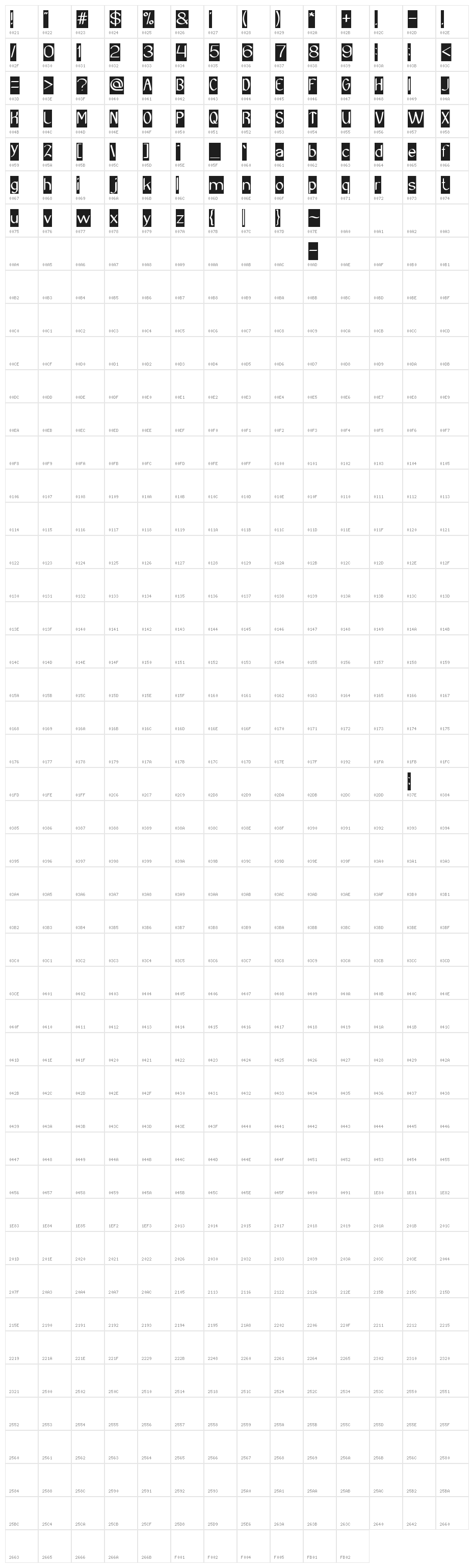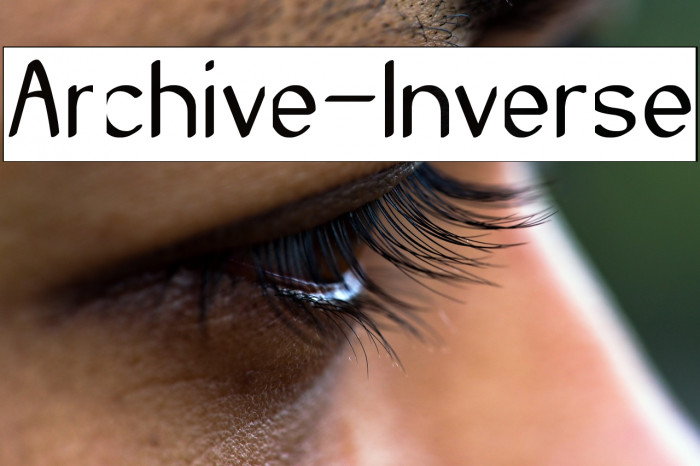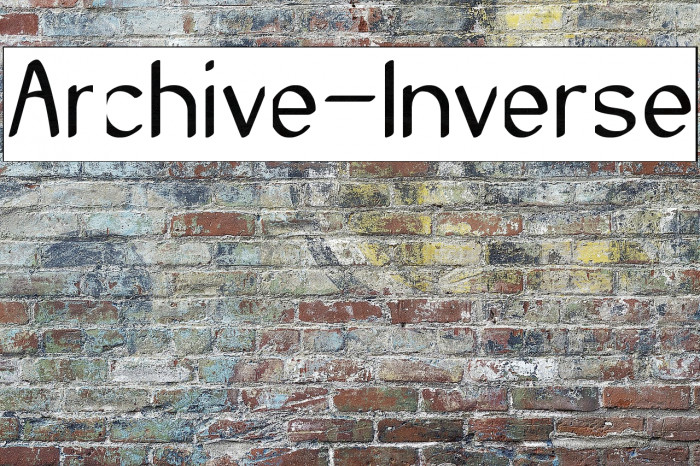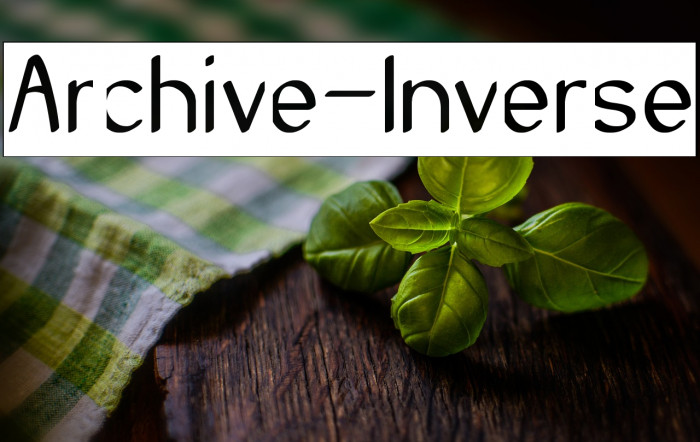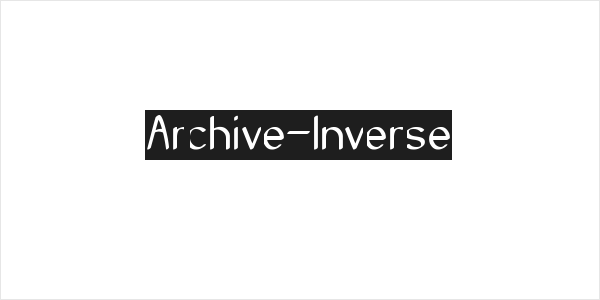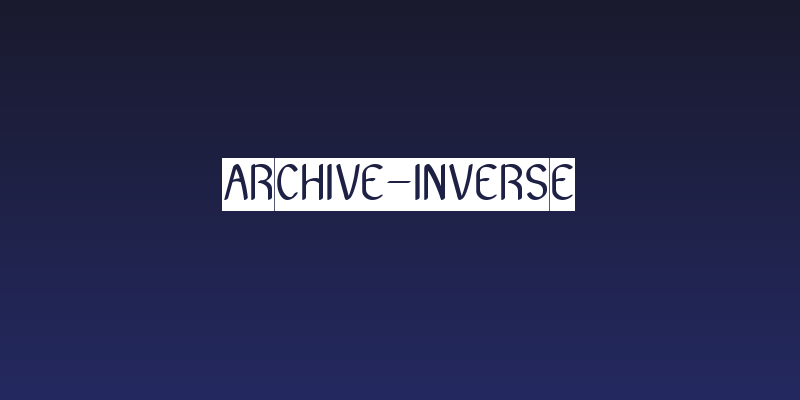
Archive-Inverse Font
Archive-Inverse Description
This font features a unique blend of modern and classic elements, characterized by its distinct, flowing curves and sharp edges. The uppercase letters exhibit a tall, narrow form with a slight slant, giving them a dynamic and elegant appearance. The lowercase letters maintain a consistent style, with rounded forms that complement the uppercase set. Numbers are clear and legible, designed with a similar aesthetic to the letters. Special characters are crafted with attention to detail, ensuring they integrate seamlessly with the rest of the font. Overall, this font combines readability with a stylish flair, making it suitable for a variety of design applications.
| Width | Condensed |
| Use Case | Headlines, Logos, Editorial design |
| Proposed Projects | Ideal for branding, editorial design, and advertising materials. |